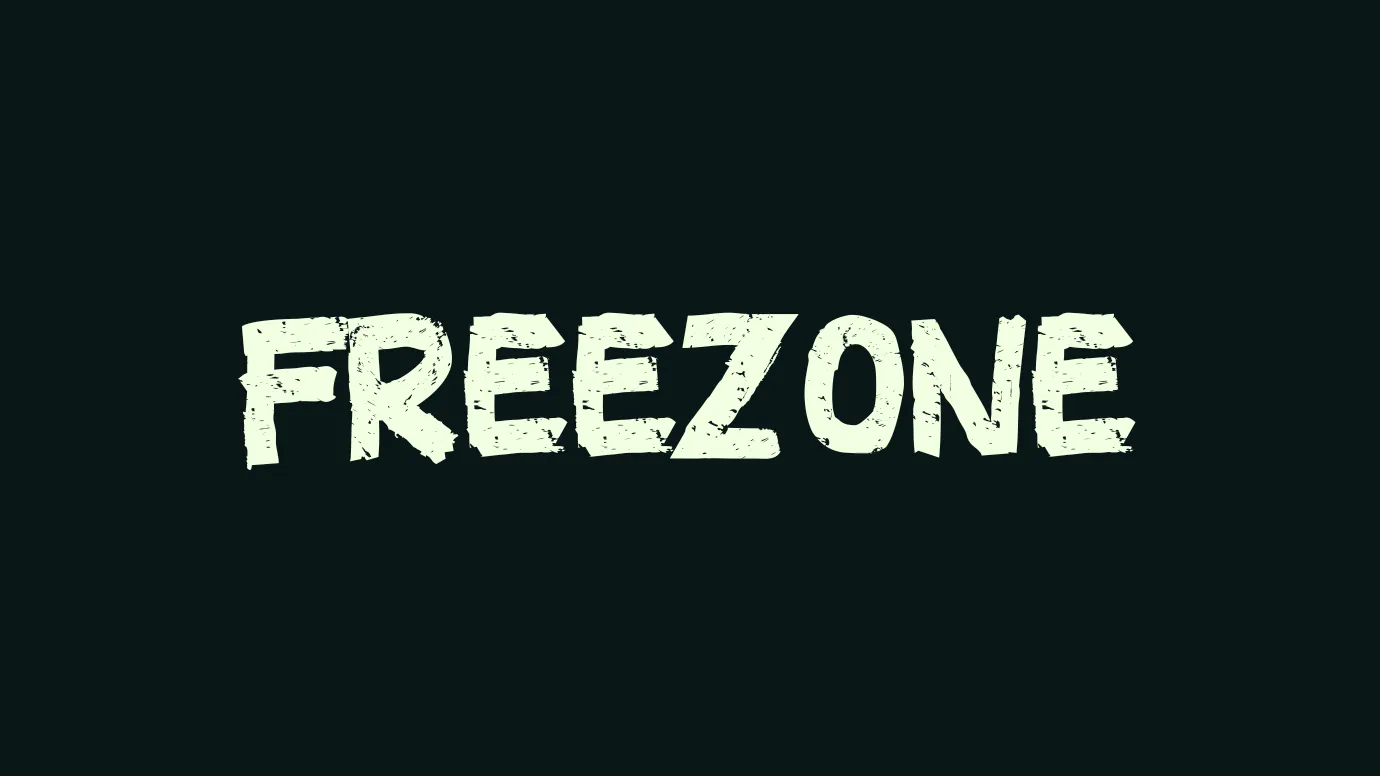
Freezone Font Family is a fancy type font and you can make so many interesting projects by using this font. This amazing font was designed by Daddi Daryawan and manufactured by creativework69 Studios.
It has three different styles which makes it look more attractive and beautiful for all types of projects. You can also use this font for pairing with others such as erica font to give a more attractive look to your projects.
Freezone Font